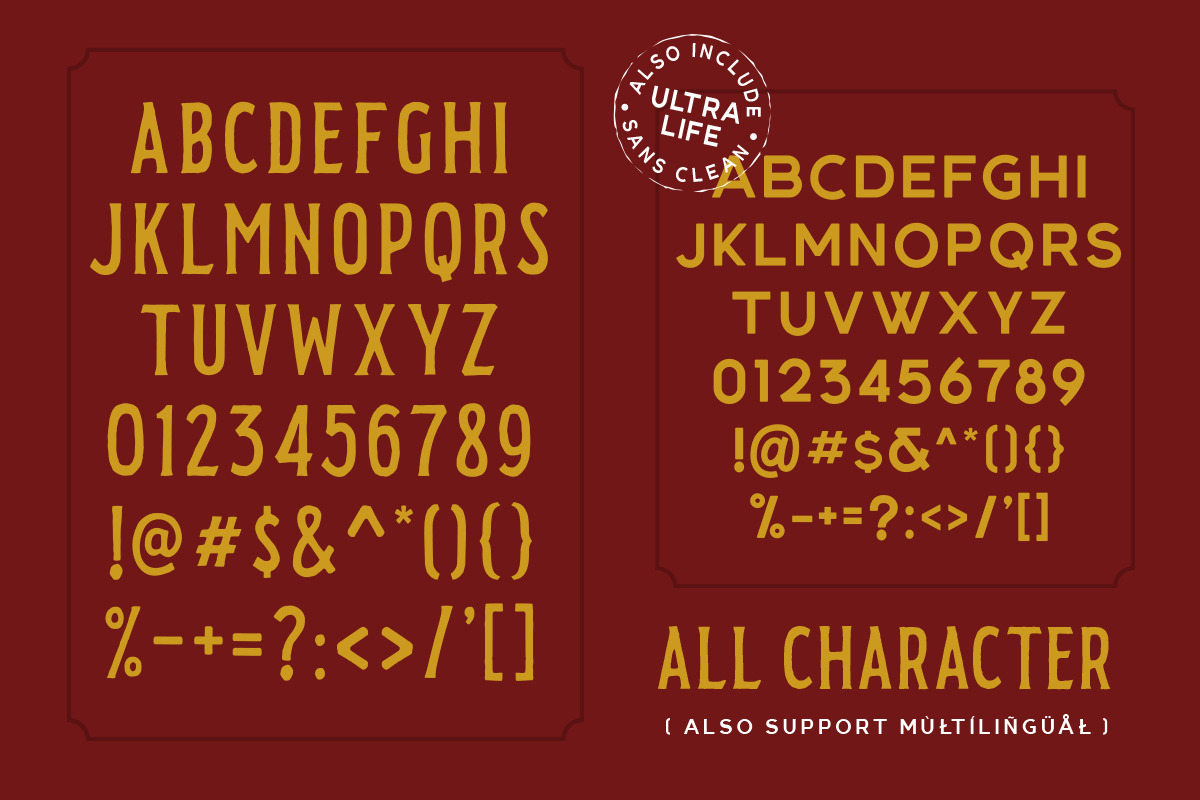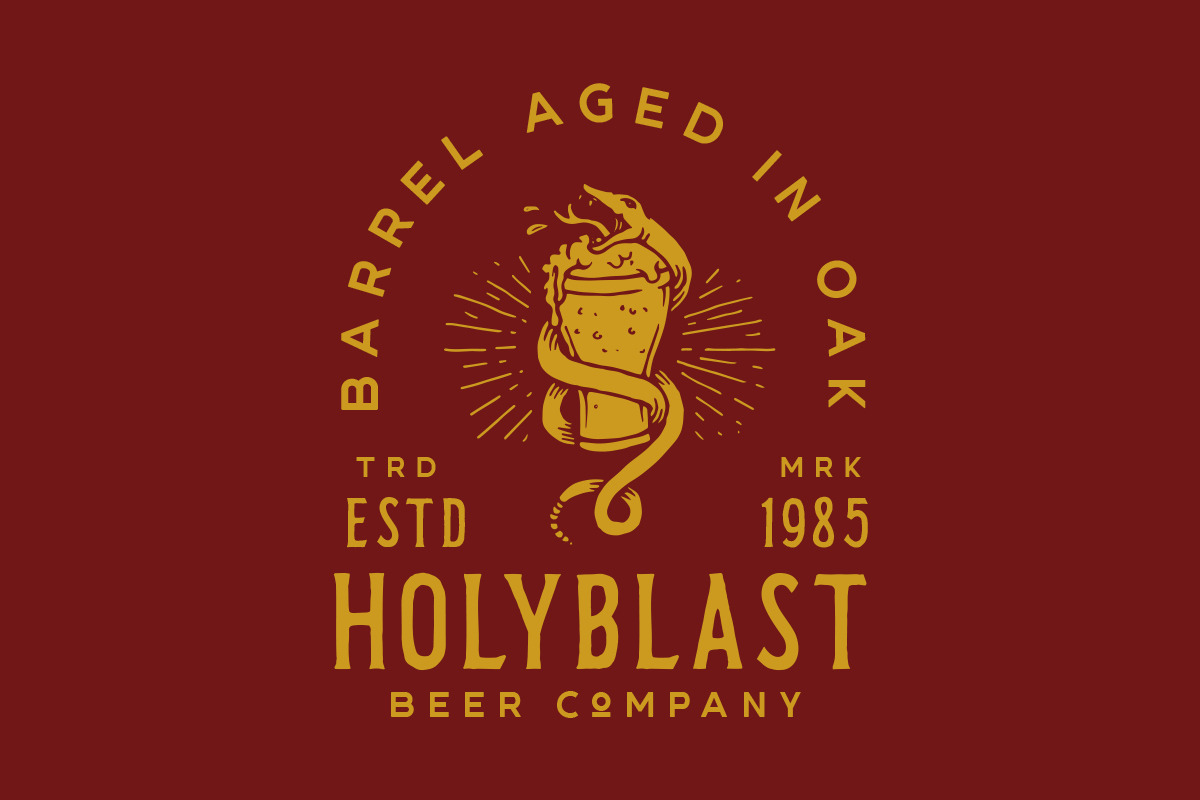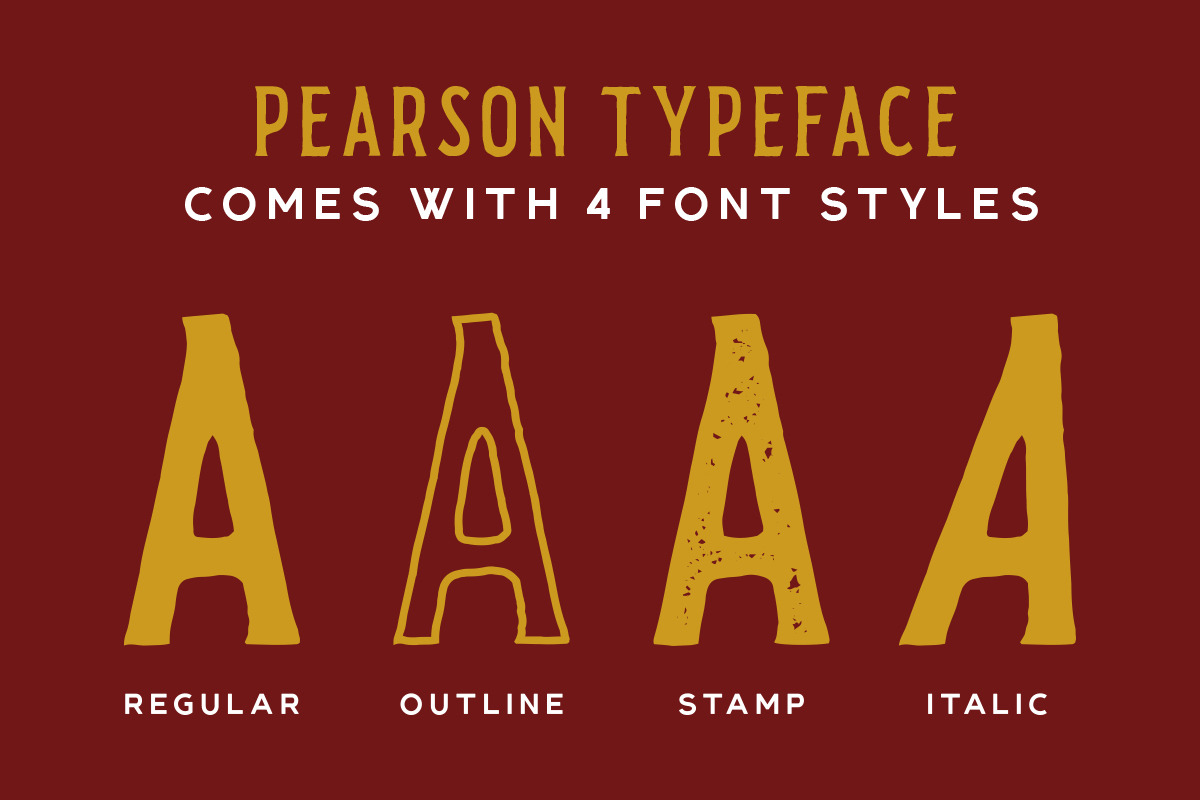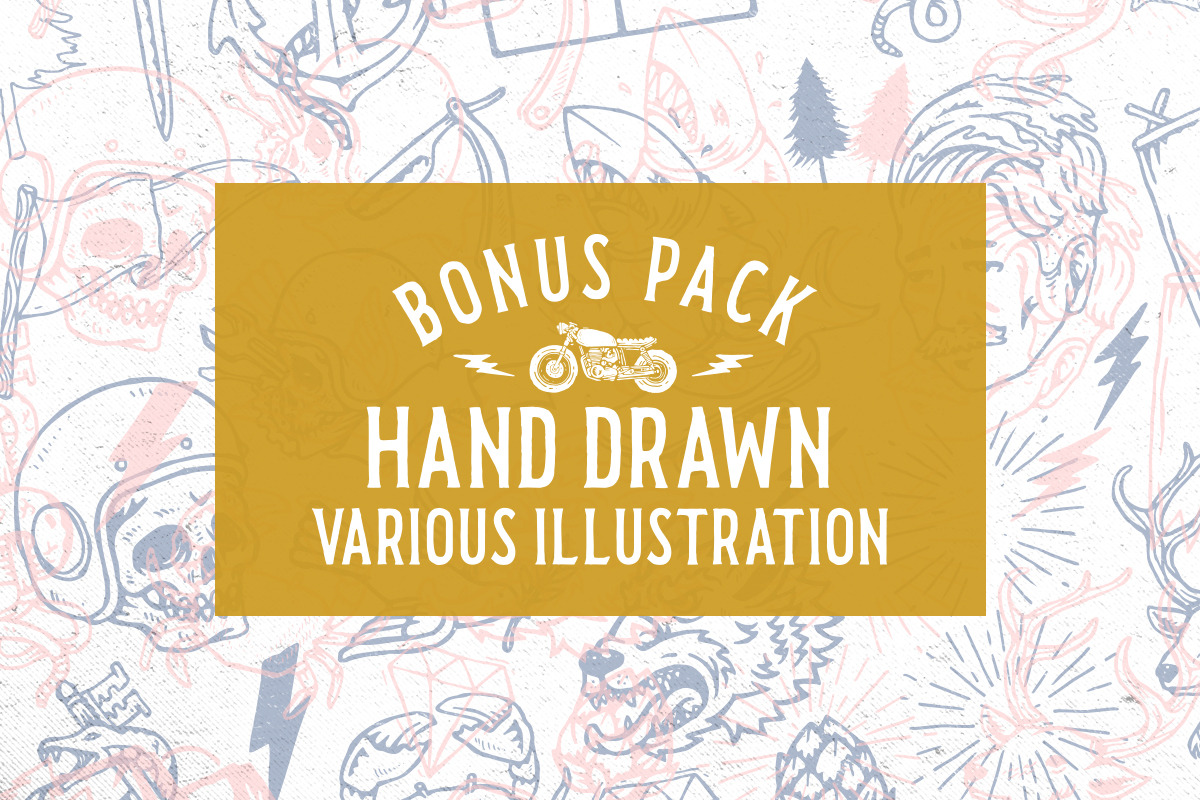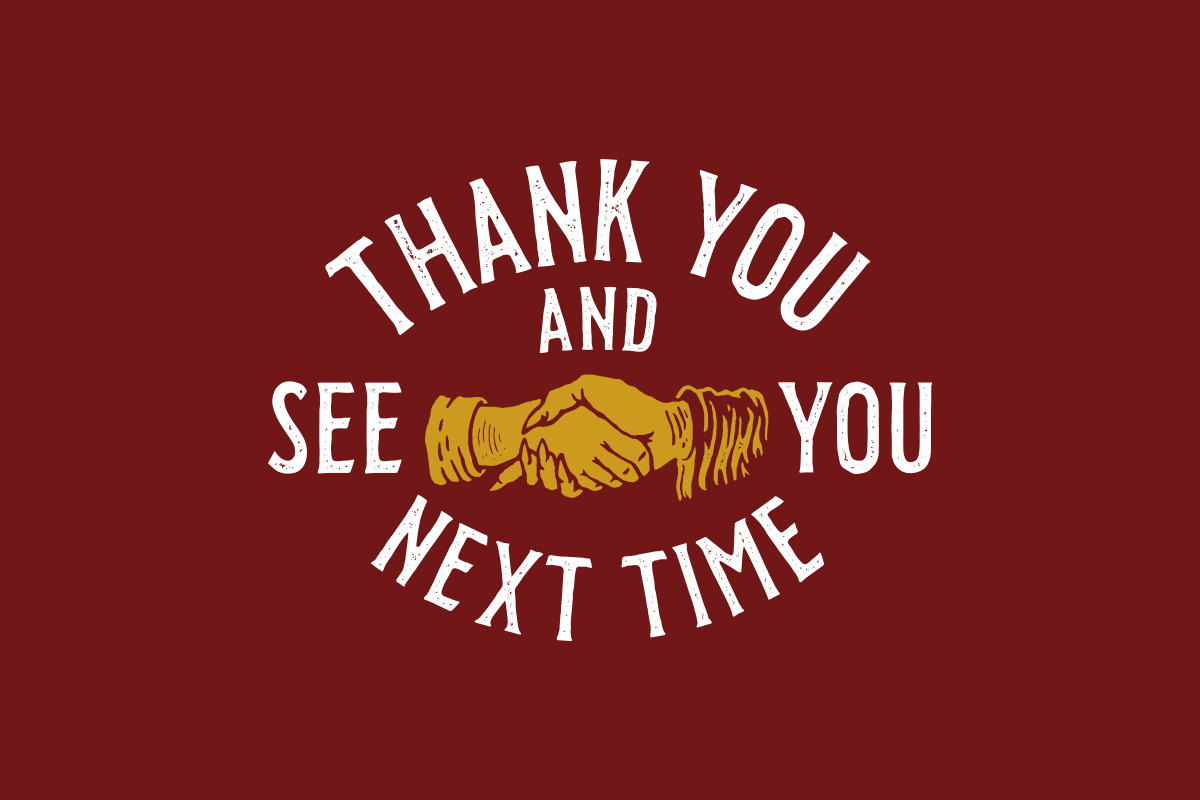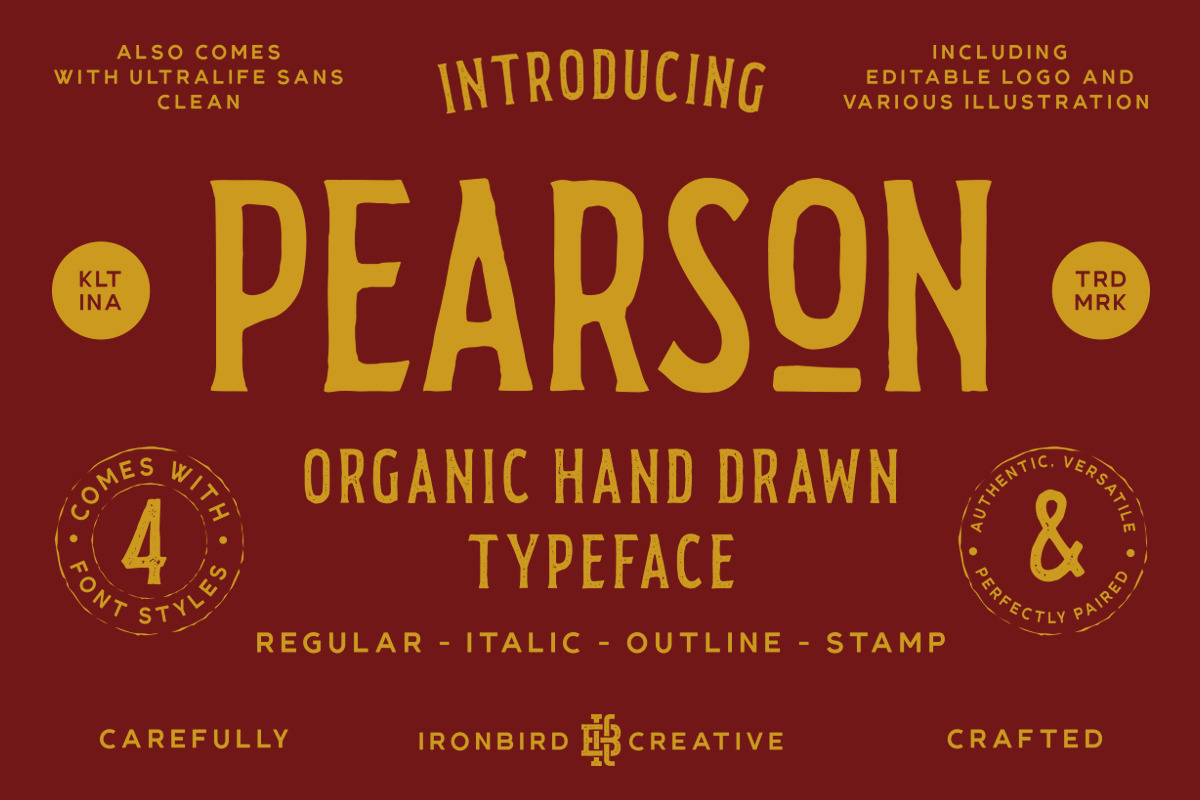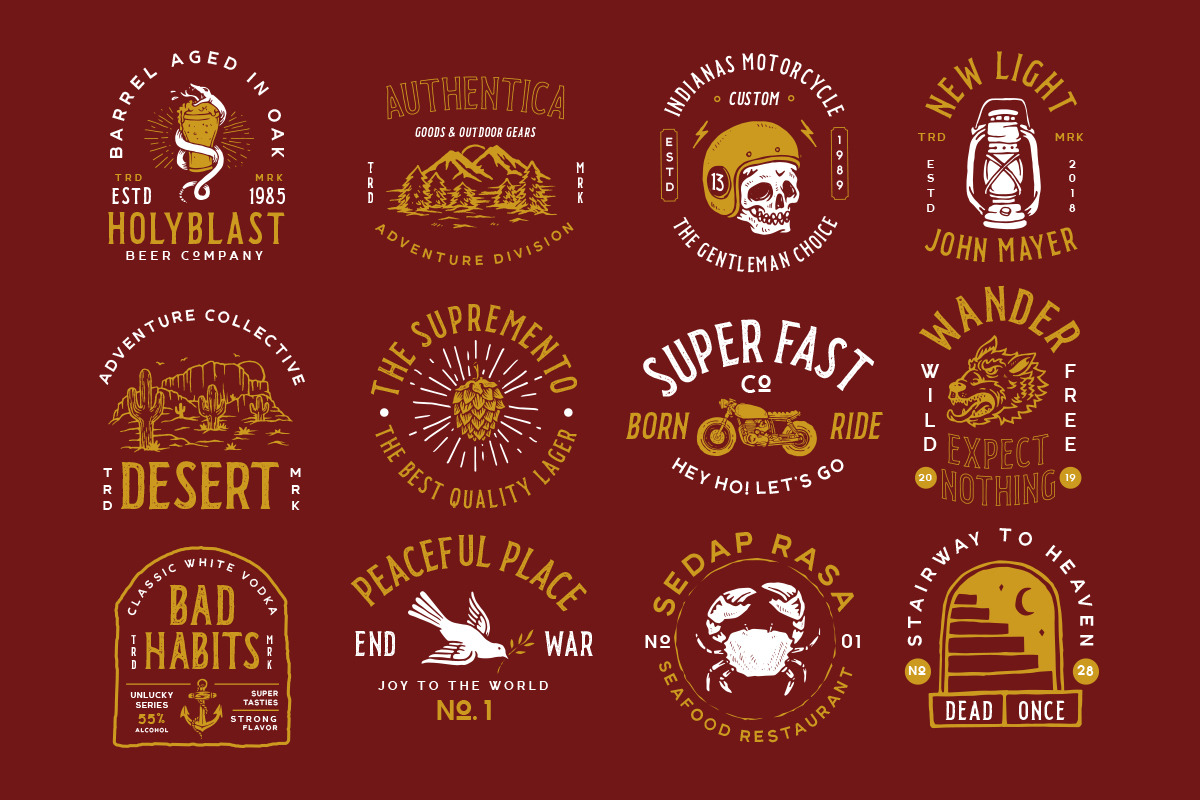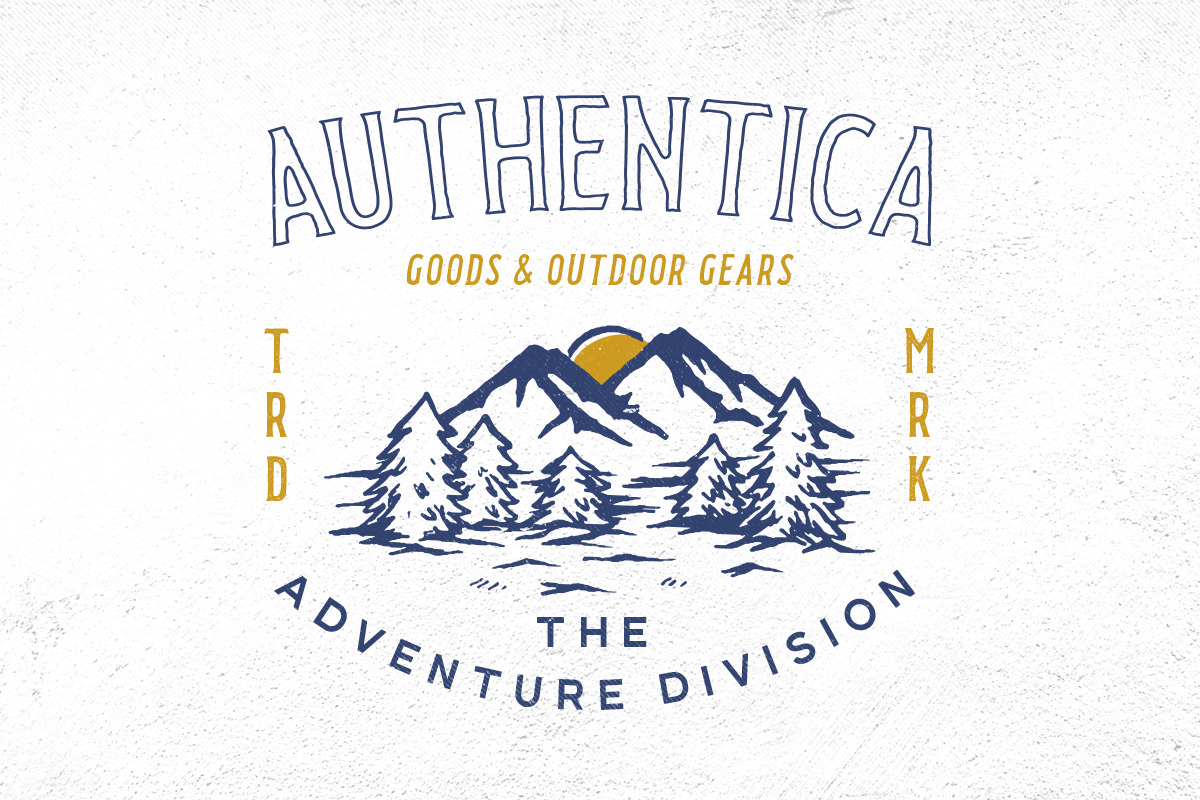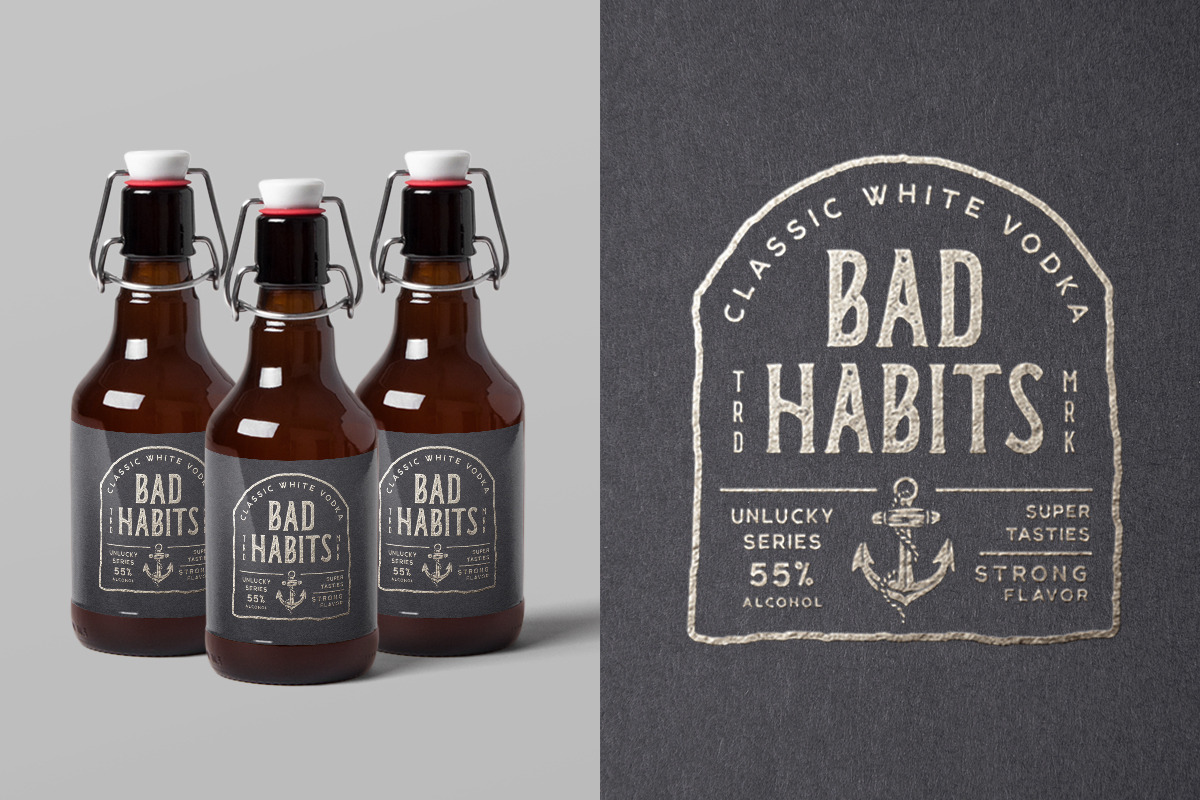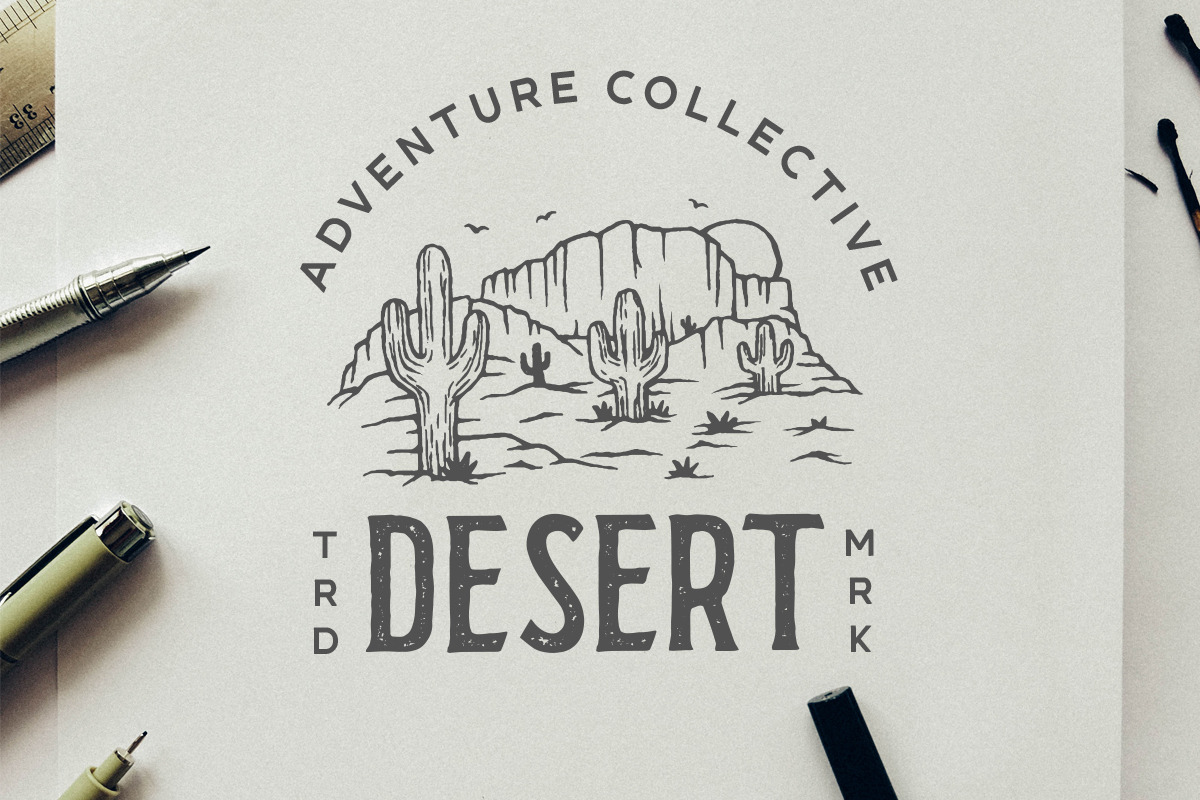
Pearson Typeface- 4 Fonts! (+EXTRA)
Introducing! Pearson Typeface
Pearson Typeface is a Original and Organic Hand Drawn Display Font. This Typeface gives a feel of vintage, classic, old, handmade looked like. Also come with FREE Various illustrations, logo pack and ULTRALIFE SANS (Clean) to make better design. This font also already PUA Encoded and I think this font is perfect for people looking for vintage aesthetic or Hand Made Typeface. Come with 4 font styles, Regular, Outline, Italic and Stamp. Suitable for any graphic designs such as branding materials, t-shirt, print, business cards, logo, poster, t-shirt, photography, quotes .etc